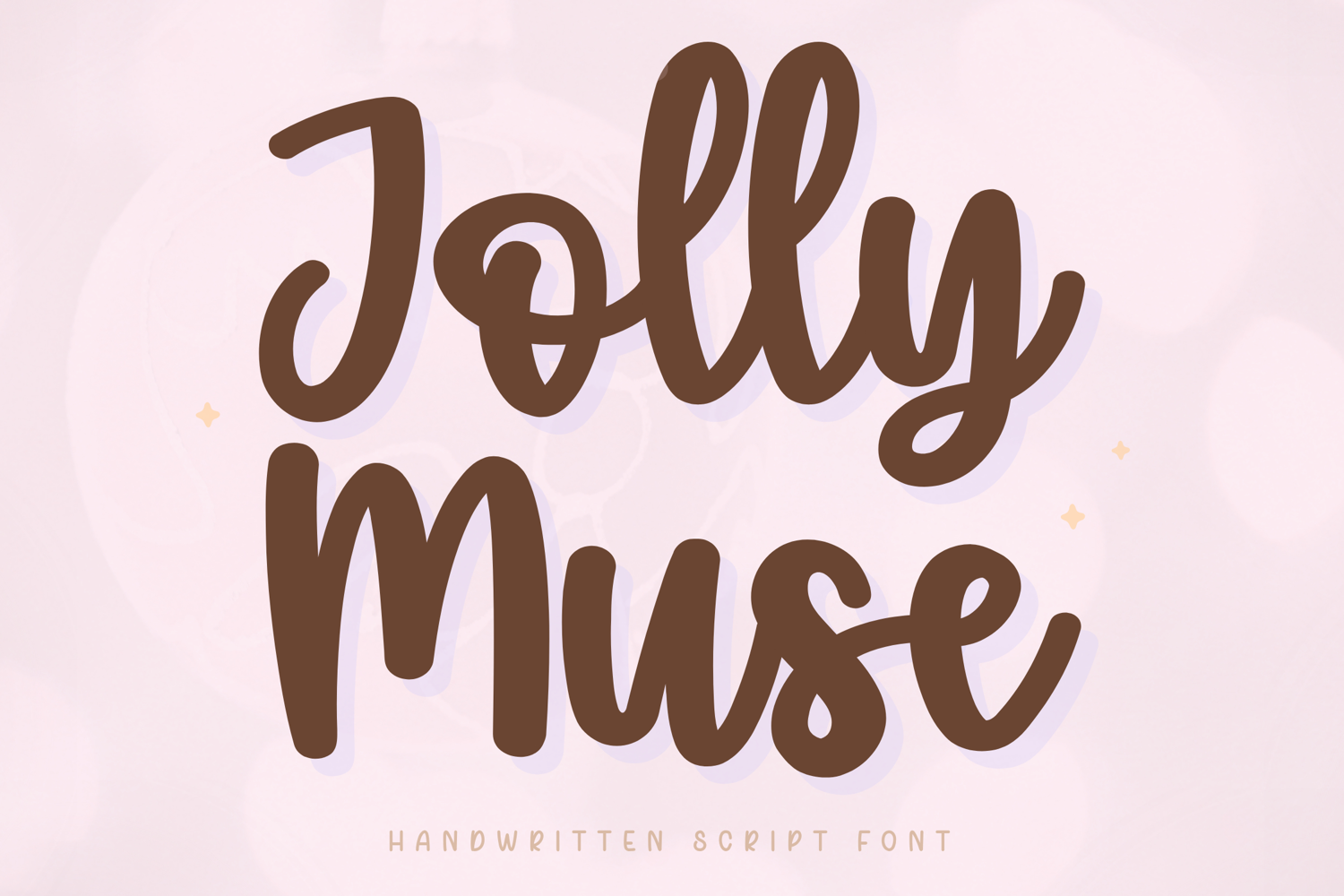
Jolly Muse - Handwritten Script Font
Jolly Muse is a joyful handwritten script font with a playful spirit and soft feminine charm. Featuring bold rounded strokes, flowing curves, and a friendly handcrafted style, this font brings warmth and personality to every design.
Its highly readable letterforms make Jolly Muse perfect for Cricut projects, planner covers, journal pages, stickers, branding, packaging, classroom materials, and social media graphics. The cheerful handwritten aesthetic feels both cute and professional, making it versatile for a wide range of creative uses.
Key Features:
Uppercase and lowercase letters
Numbers and punctuation
Bold handwritten script style
Smooth rounded letterforms
Perfect For:
Cricut and Silhouette projects
Stickers and printables
Logos & Branding
Product packaging
Teacher resources
Social media graphics
Planner and journal designs
Best Use Cases:
Planner covers
Classroom worksheets
Sticker shops
Product packaging
Tote bags and mugs
Boutique branding
Design Style:
Jolly Muse combines cheerful energy with clean readability. Its rounded shapes and playful curves create a handwritten script font that feels warm, approachable, and effortlessly stylish.